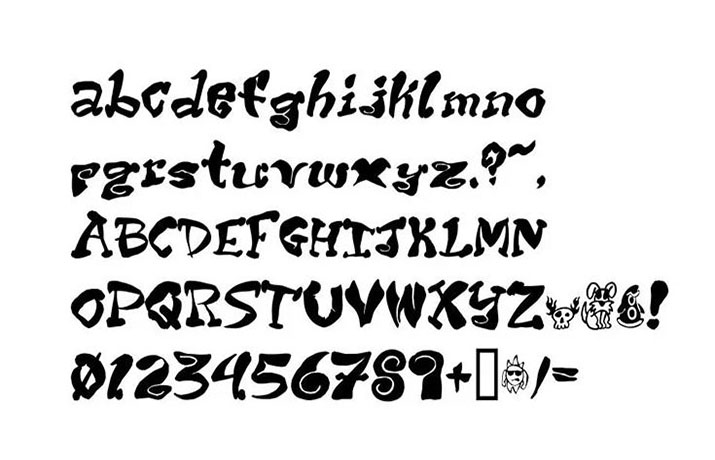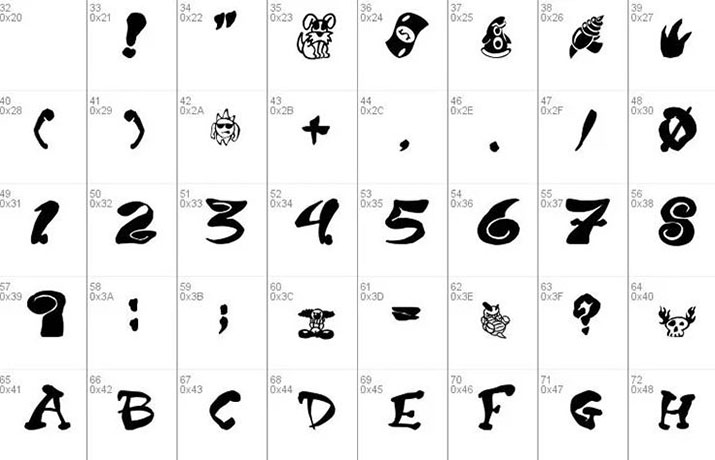
Purple Tentacle Font is a fancy cartoon typeface that has a rounded and swirling tentacles style. Petro Design Foundry designed and released it.
All the textures are created in an irregular way using many types of strokes. However, the designer added sharp and cursive strokes to make it into the cartoon category.
Due to its playful and eye-catching look, you can use it for various works such as logos, branding, social media posters, headers, titles, banners, brochures, comics, signs, and more.
“Purple Tentacle typeface comes in a single weight along with True Type file formats. This font includes 103 glyphs, numbers, symbols, and some punctuation marks. Moreover, it also supports 34 languages.”
- Try it out for book covers, game graphics, product designs, banners for social media, advertisements, headers, titles, cards for special events, product packaging, cartoon posters, comics, headers, titles, posters for social media, signs for product designs, flyers, signs, movie posters, special quotes, and a lot more.
This font supports 34 different languages. This font includes 103 glyphs, numbers, symbols, and some punctuation marks.